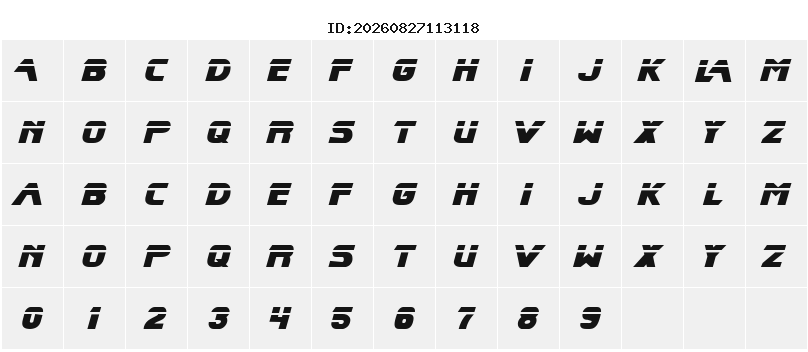
242-CAI978 Preview
• Copyright: Created by Phil Steinschneider (philips@pressroom.com). Inspired by the original Blade Runner® movie font. Blade Runner® is a trademark of the Blade Runner Partnership. All rights reserved.
About 242-CAI978.ttf
242-CAI978.ttf is a modern, elegant sans-serif font designed for ultimate readability and visual harmony. Perfect for branding, headlines, web design, and print materials.